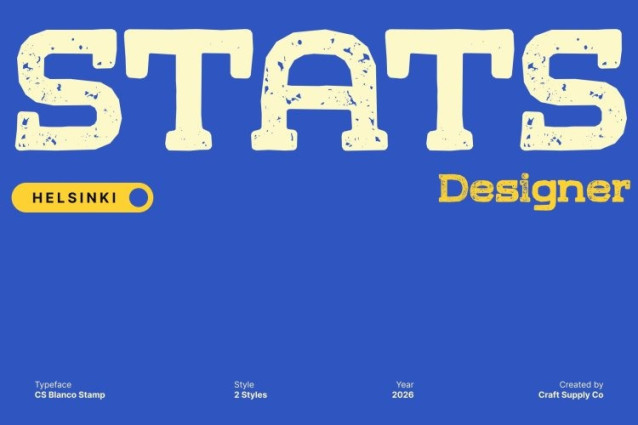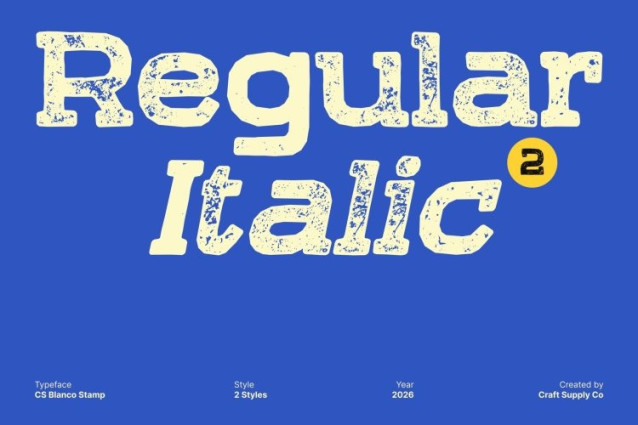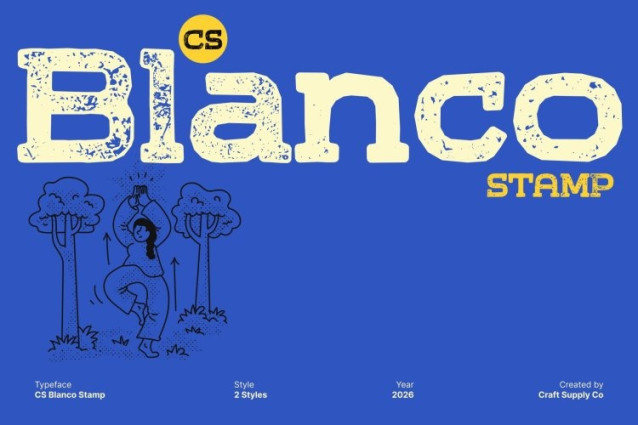
CS Blanco Stamp Font
CS Blanco Stamp Font This is an expanded slab serif font designed to project strength, confidence, and authority. Its wide stance, sturdy slab serifs, and solid construction create a commanding visual identity. Enhanced with a stamp effect, the font gains textured surfaces and subtle distress, introducing a vintage, old-print character that adds artistic depth to its bold, modern structure.
Outstanding Readability with Old-Style Texture
Crafted for maximum clarity, this font performs exceptionally well in large-scale and long-distance applications. The expanded letterforms remain highly legible, while the stamped texture evokes the feel of traditional posters, retro signage, and classic print techniques ensuring impact without sacrificing readability.
Modern Strength with Retro, Artistic Appeal
While its geometry and proportions communicate modern sturdiness, the stamped finish brings a nostalgic, handcrafted touch. This fusion makes ideal for impactful branding, logos, packaging, and promotional materials that seek to convey reliability, power, and heritage all at once.
Perfect for Sports Designs and Energetic Visuals
With its athletic posture and bold expansion, this font is a natural fit for sports-related designs. The vintage stamped texture enhances its competitive energy, making it perfect for team branding, sports apparel, event posters, scoreboards, and high-impact visuals that demand dominance, excitement, and old-school character.